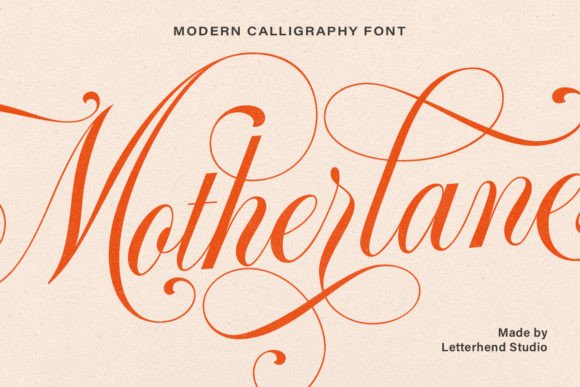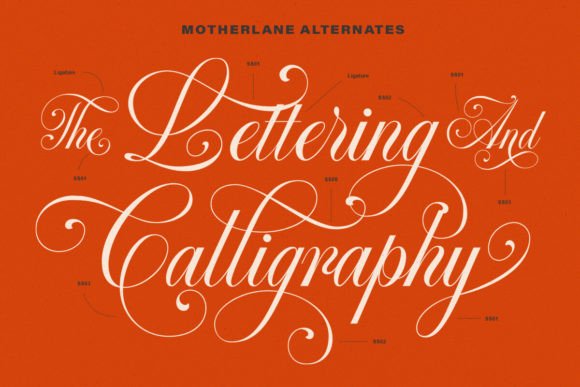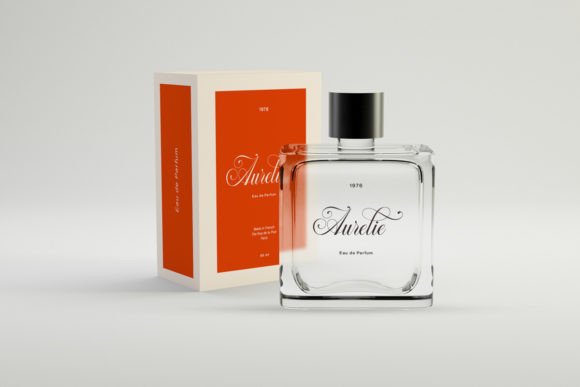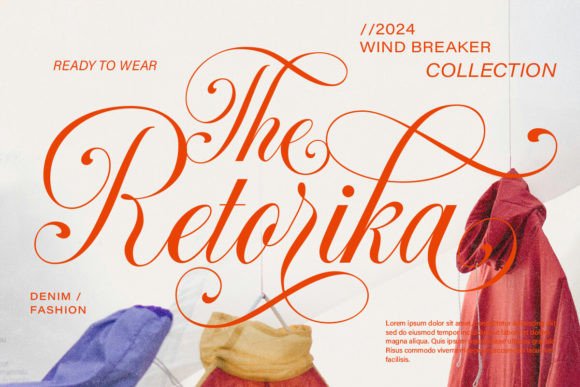
Motherlane Font: Elegant Calligraphy Script for Wedding & Logo Design
About the Motherlane Font
Welcome to the world of Motherlane Font, a typeface that will inspire your next great project. Motherlane is a elegance modern calligraphy script based on manual hand writing. The natural flow with the swashes make this font looks even more prettier. This type of font perfectly made to be applied especially in wedding invitation, labels, logos, magazines, books, greeting / wedding cards, packaging, fashion, make up, stationery, novels, labels or any type of advertising purpose.
Motherlane’s elegant, flowing style is ideal for headlines, logos, and short-form text in branding materials, wedding invitations, and packaging design where its refined aesthetic adds a touch of sophistication. It excels in conveying a sense of luxury and romance.
However, its calligraphic nature makes it less suitable for body text or UI elements; the intricate details can become difficult to read at smaller sizes or within complex layouts. Avoid using it for lengthy paragraphs or applications requiring high readability.
Pairing Motherlane with a clean sans-serif like Montserrat or a geometric sans-serif like Futura creates a strong contrast, balancing its organic quality with modern structure. For a softer pairing, consider a delicate serif like Lato or Playfair Display.
Motherlane Font Usage Examples
Motherlane Font Example